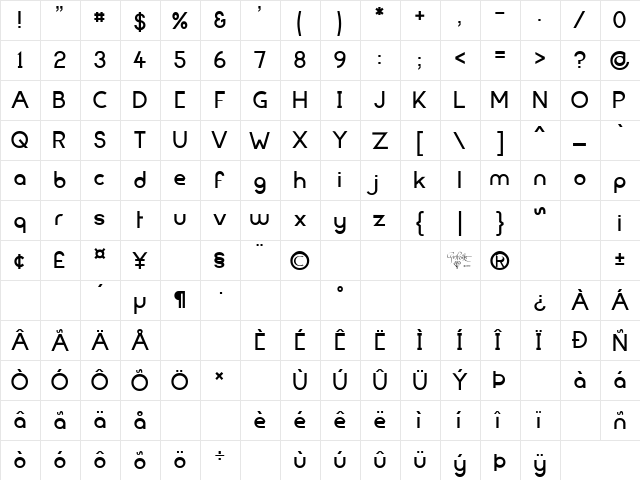
FortuneCity Regular
Design Context for FortuneCity Typeface
FortuneCity offers clean, dependable letterforms without strong stylistic allegiance, making it a practical choice for designers who need flexibility.